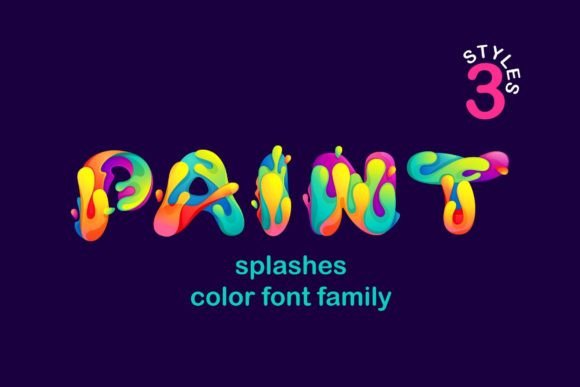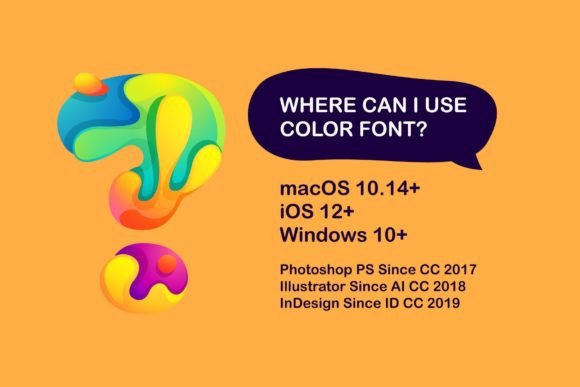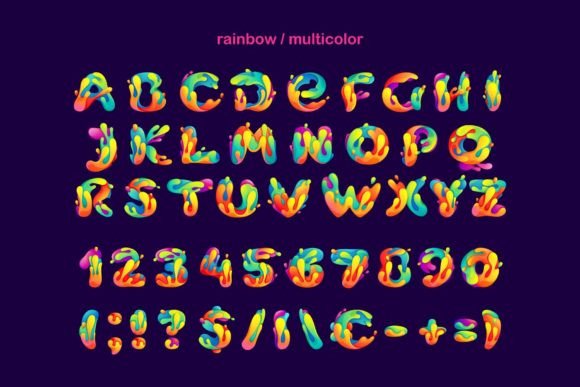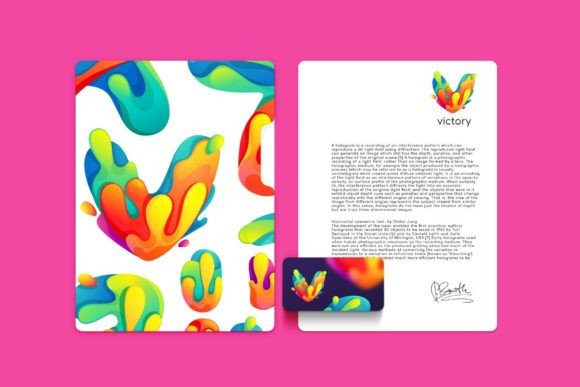
Paint Splashes Font
About the Paint Splashes Font
The Paint Splashes Font is here to transform your projects with its distinctive character and style. Paint Splashes Color Font. All the letters in this font are colored brightly and vividly with colors overlay. Multicolor icon with glow and gradients. Perfect for positive art, children’s design, vibrant advertising, juice packaging, and colorful identity.
This font’s energetic, playful personality makes it ideal for headlines, short bursts of text in advertising, and vibrant branding projects targeting younger demographics. It excels in packaging design for products like children’s toys, snacks, or brightly colored cosmetics. Avoid using it for body text or lengthy paragraphs; its highly decorative nature reduces readability in extended use.
Paint Splashes Font pairs well with clean sans-serif fonts like Open Sans or Lato for a balanced contrast. For a more playful feel, consider pairing it with a rounded geometric sans-serif such as Circular Std. A touch of elegance can be added by pairing it with a simple serif like Merriweather, used for supporting text.
The overall effect is best suited for brands projecting fun, creativity, and a youthful energy. Its bold, colorful style is less suitable for sophisticated or minimalist designs requiring subtlety and understated elegance.